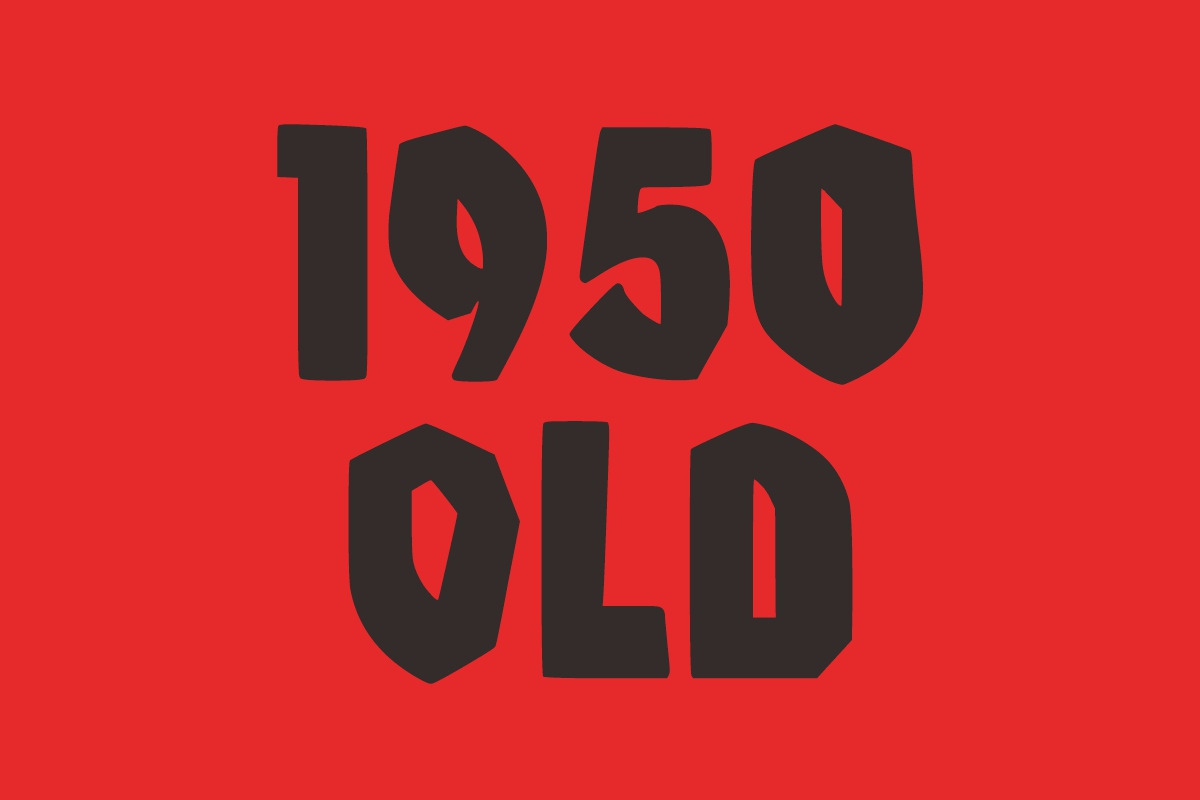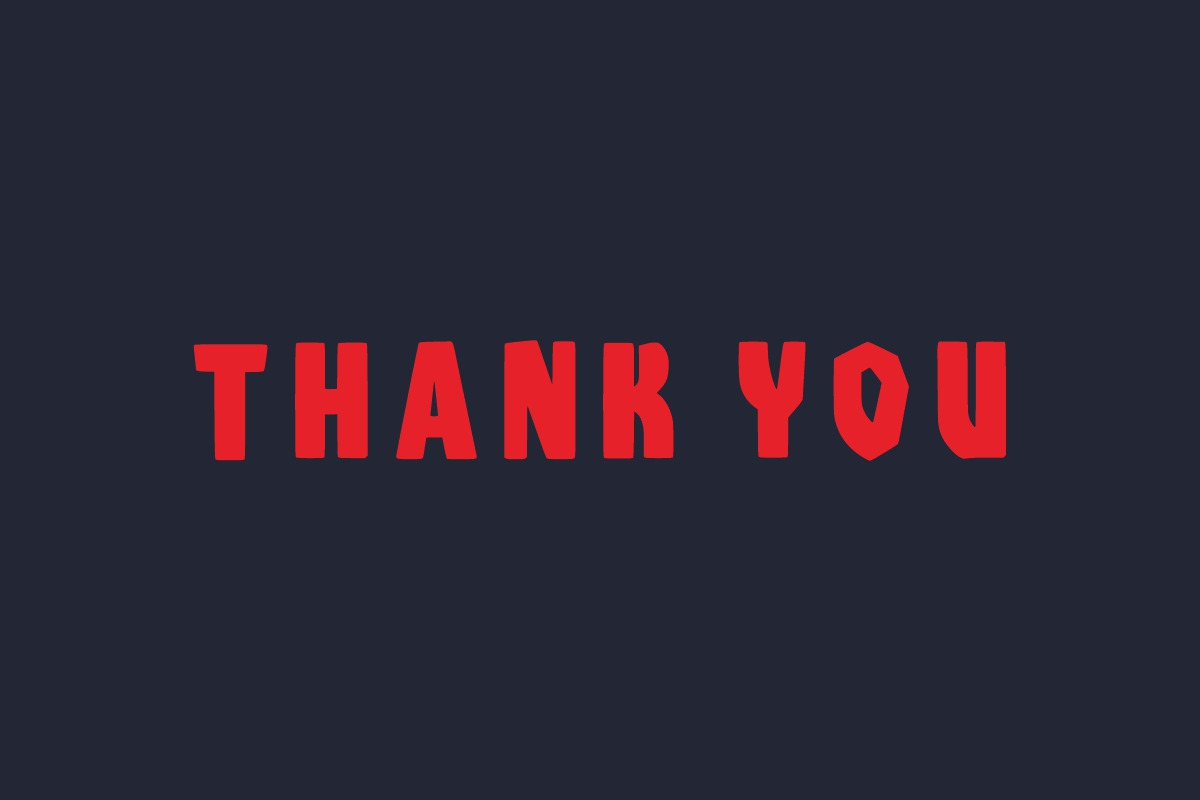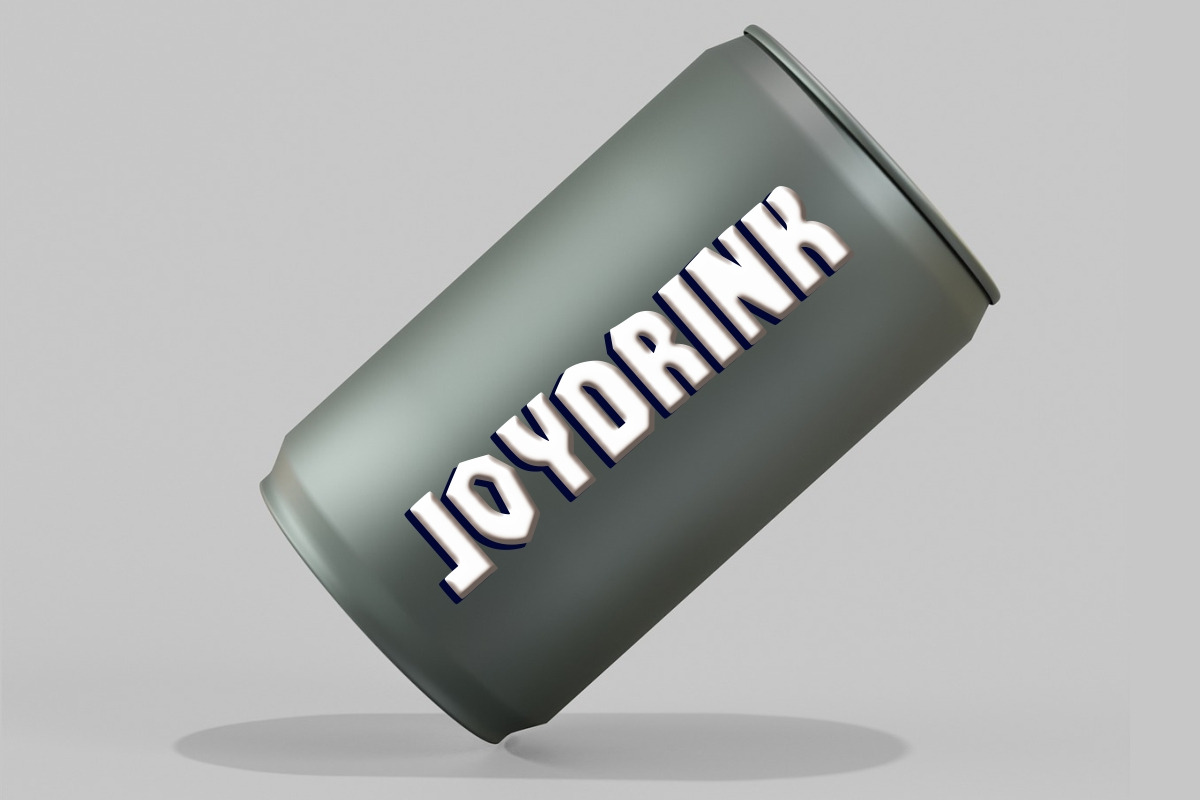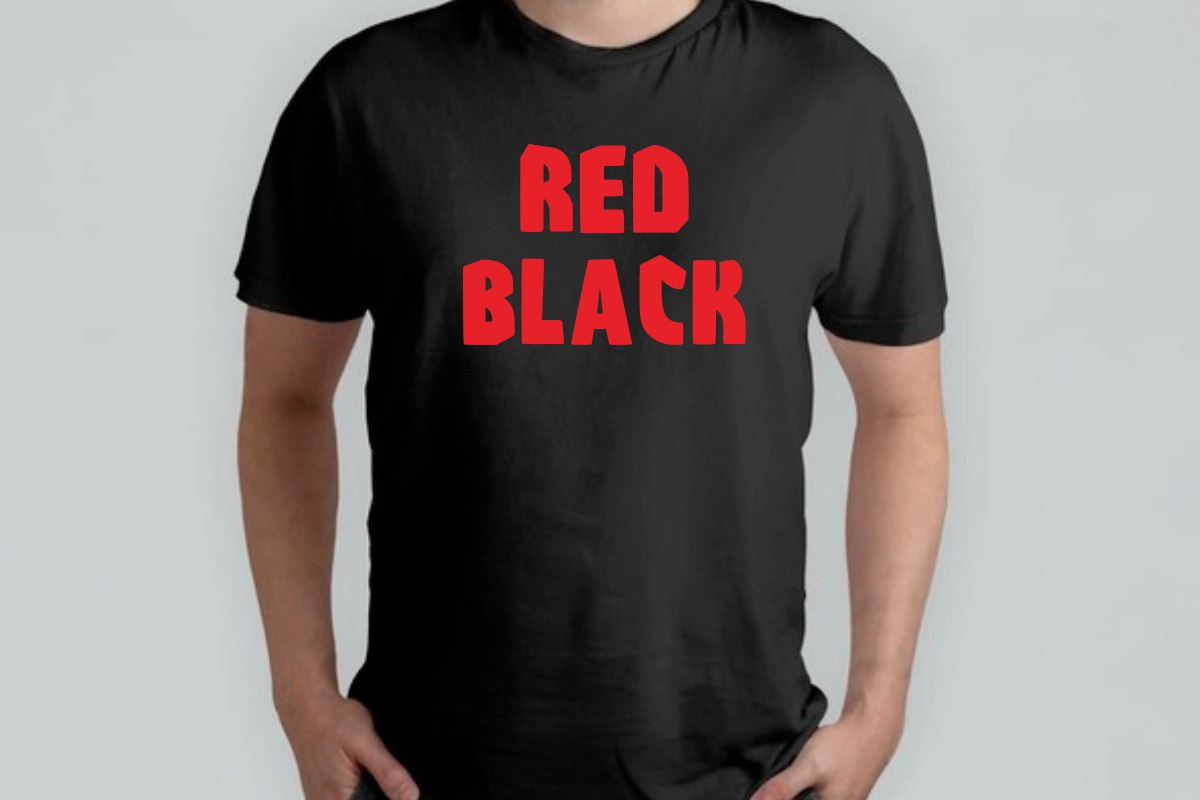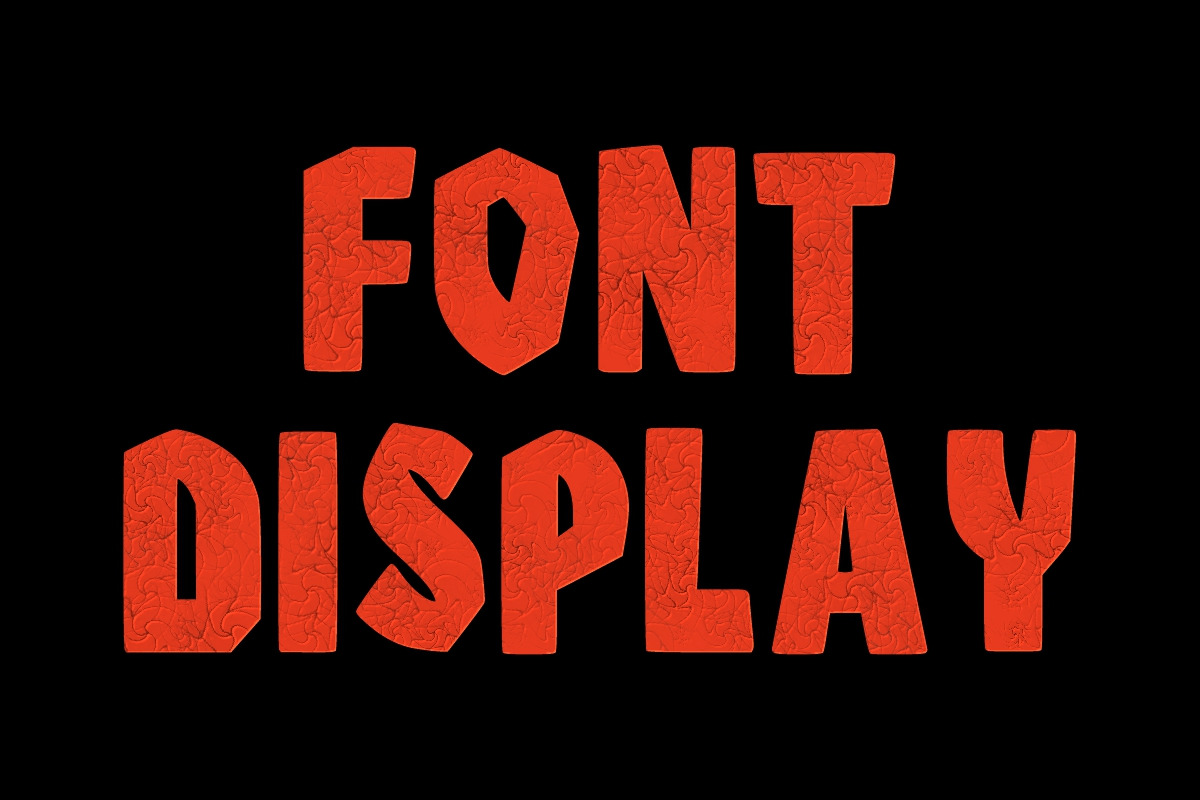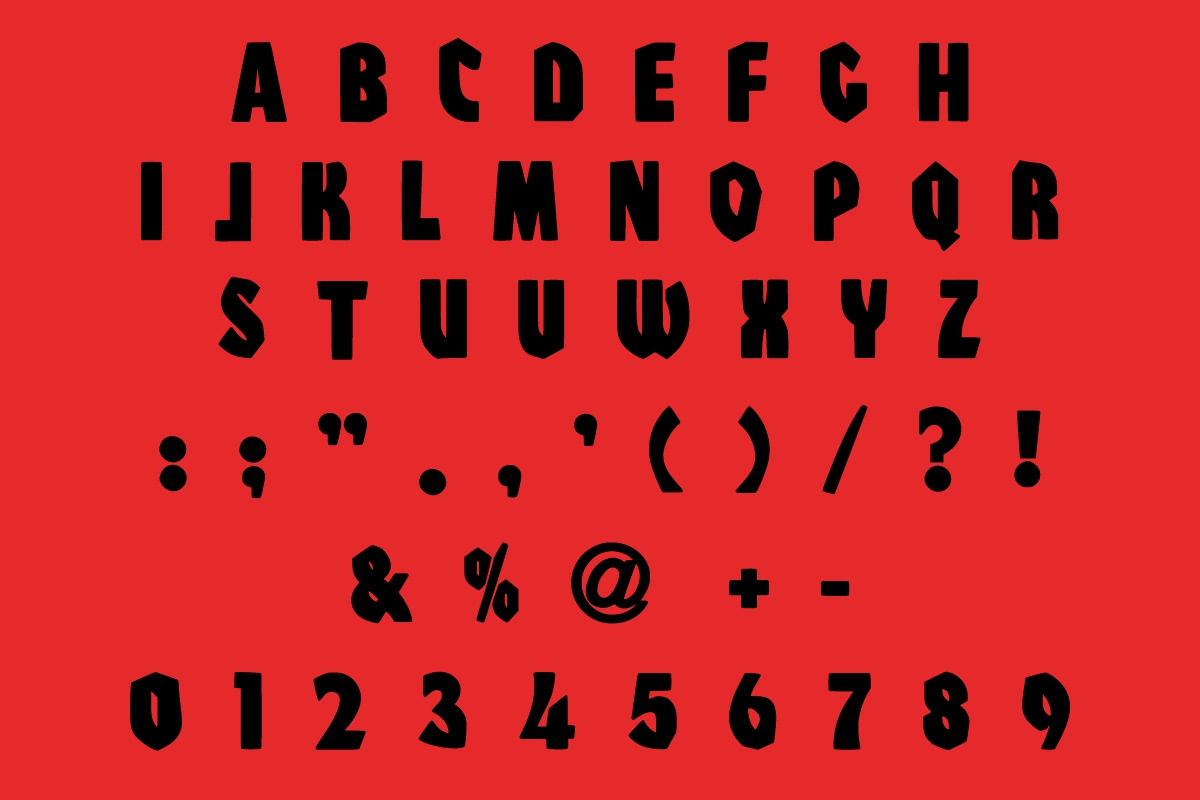
STONE
Stone is a vintage and cool bold display font. It is suitable for any branding project, product packaging, invitations, t-shirts, labels, posters, and more!